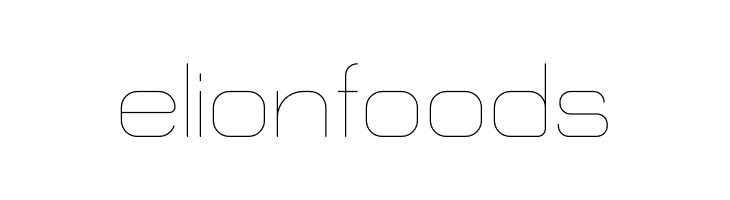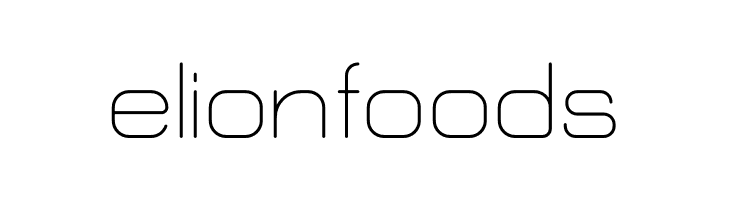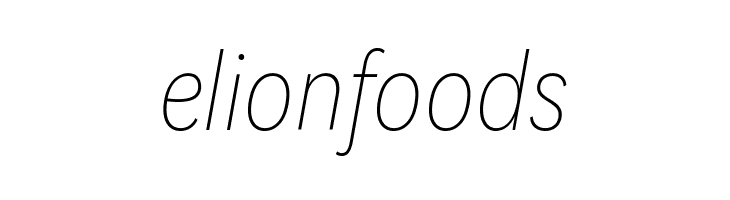
A modern, geometric sans-serif font with clean lines and a minimalist style.
A tall, slender, and modern font with a minimalist aesthetic.
A sleek, ultra-lightweight font with a modern, minimalistic design.
A sleek, modern font with geometric and minimalist design.
A sleek, modern font with thin, geometric lines and a minimalist style.
A clean, geometric monospaced font with consistent character width.
A sleek, modern, condensed thin italic font with a minimalist aesthetic.
A thin, modern sans-serif font with clean lines and a minimalist style.
A modern, thin sans-serif font with condensed letterforms and a minimalist style.